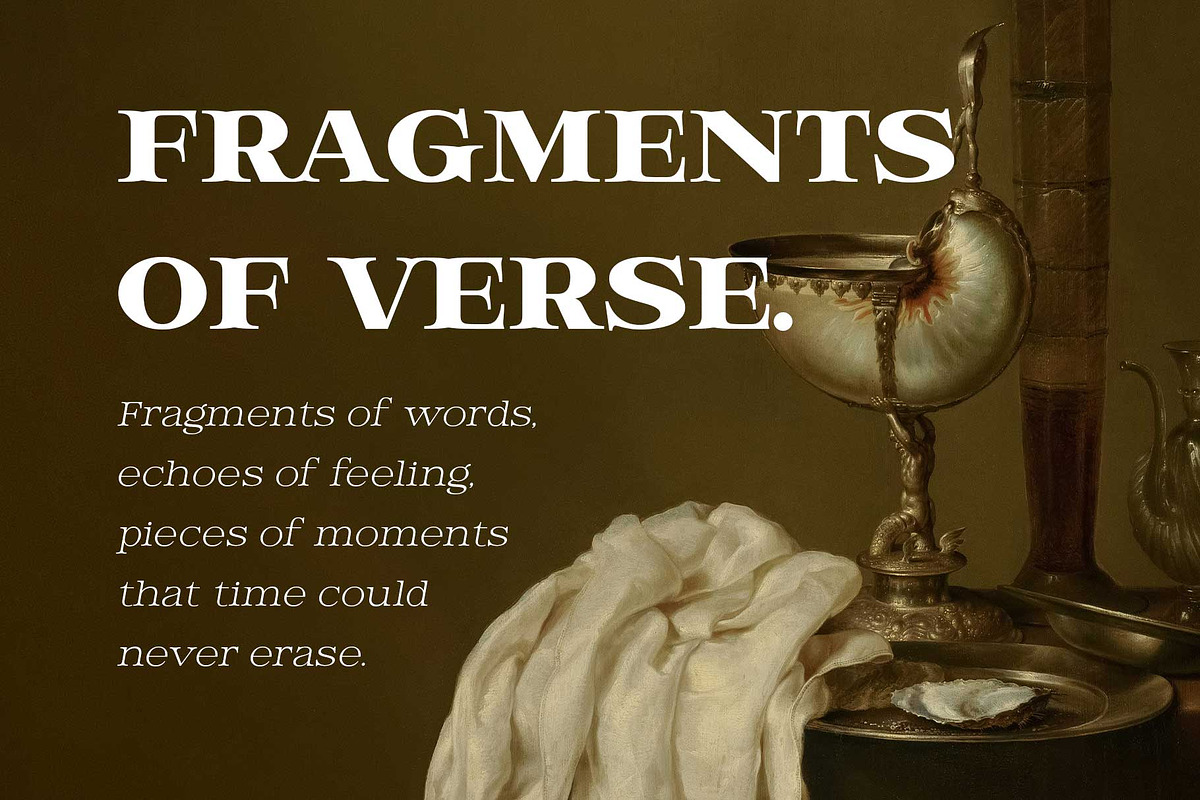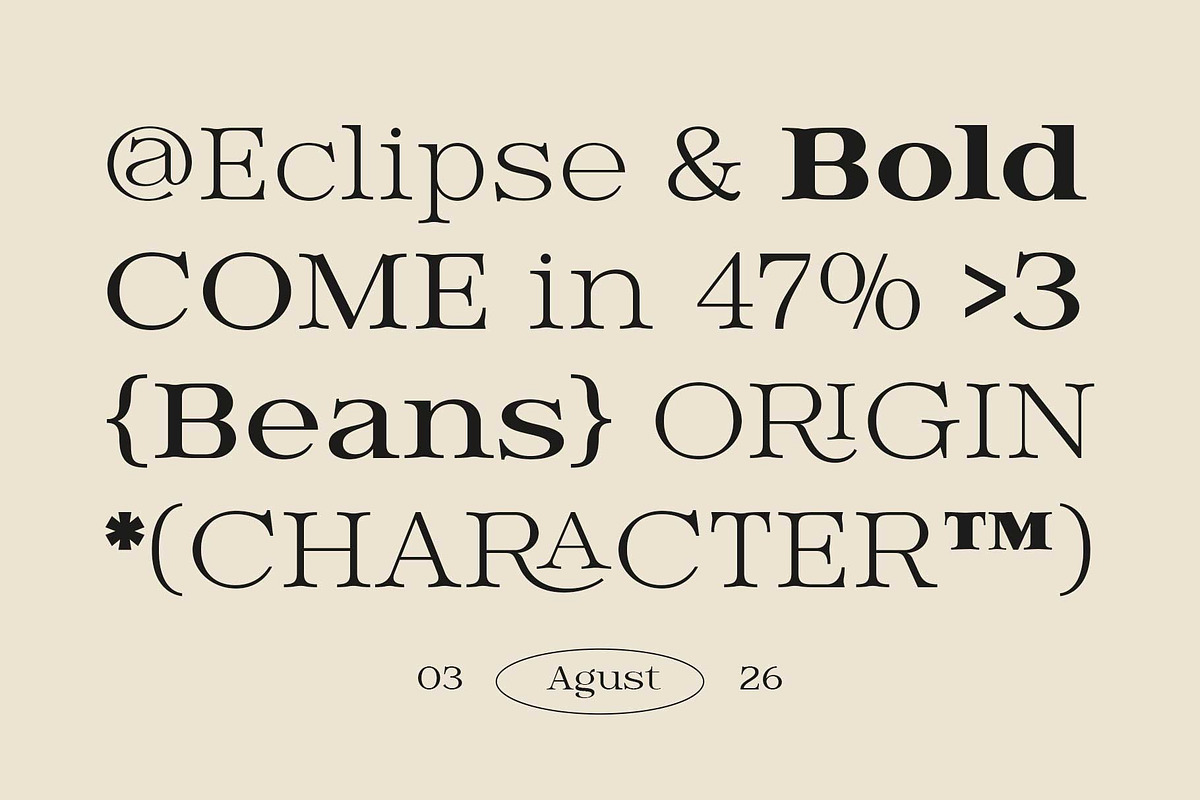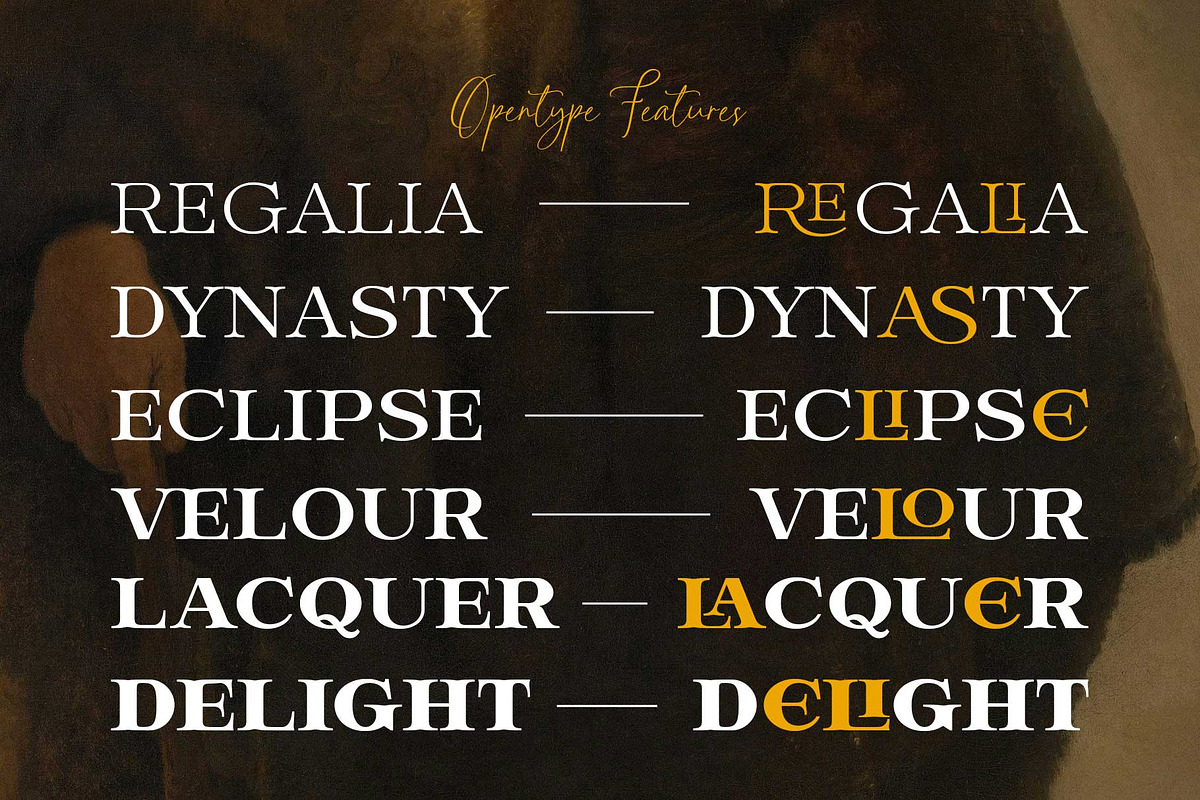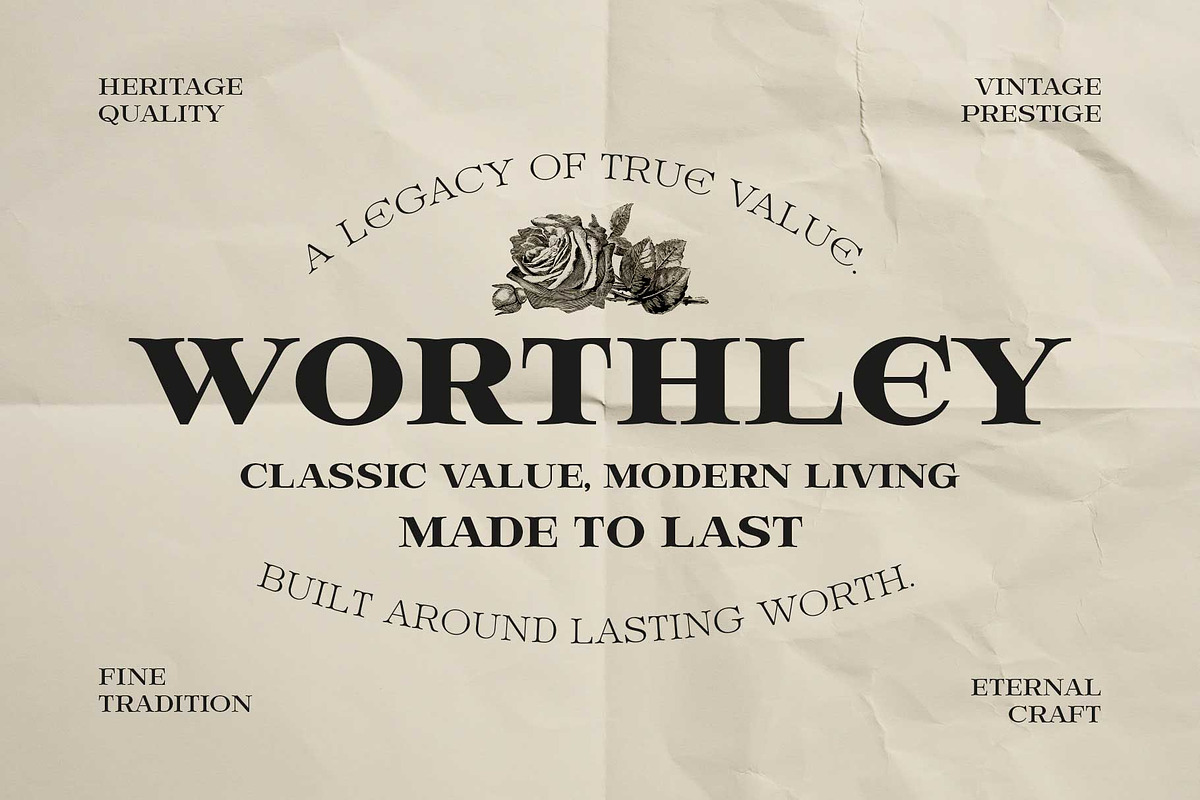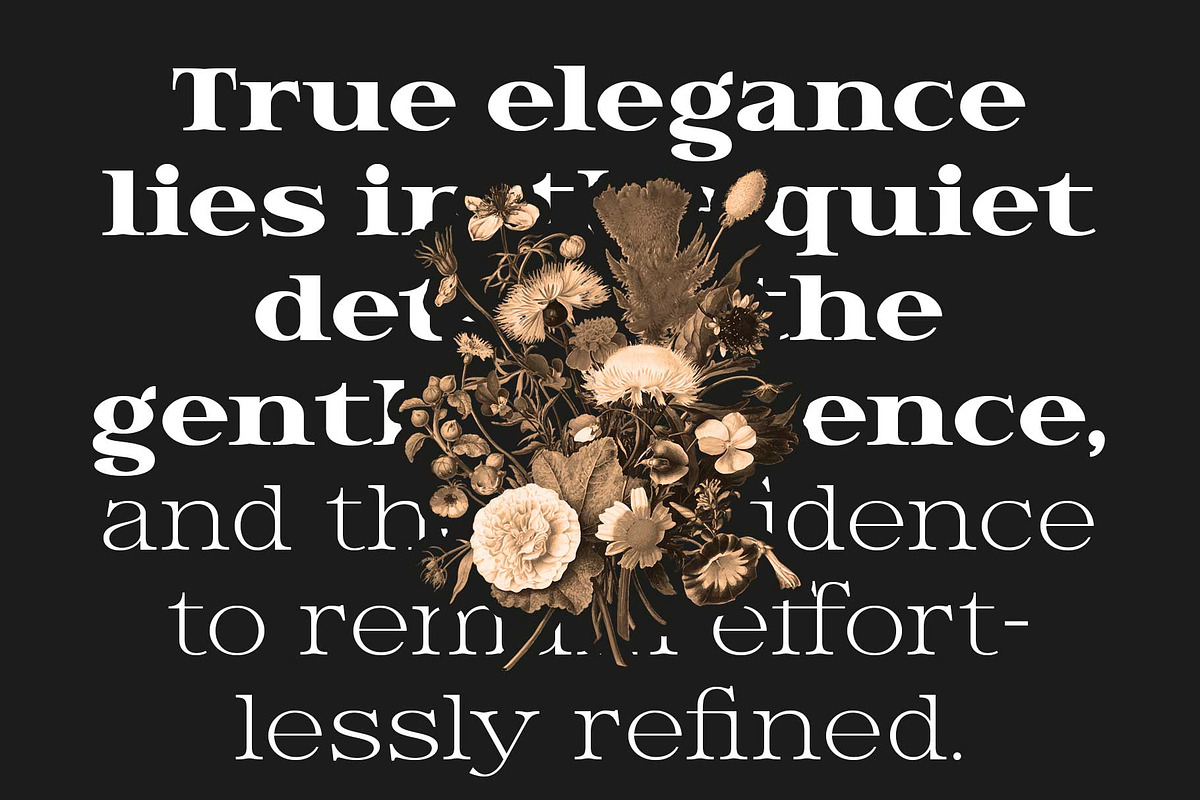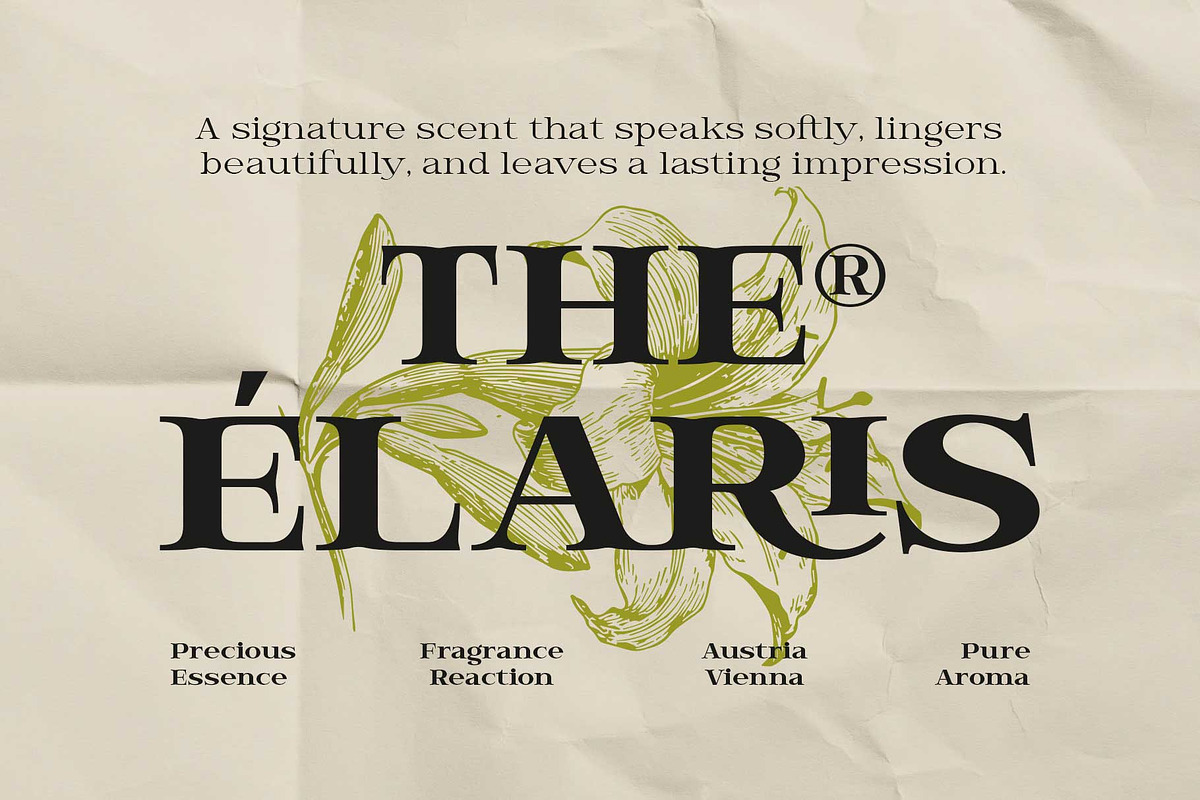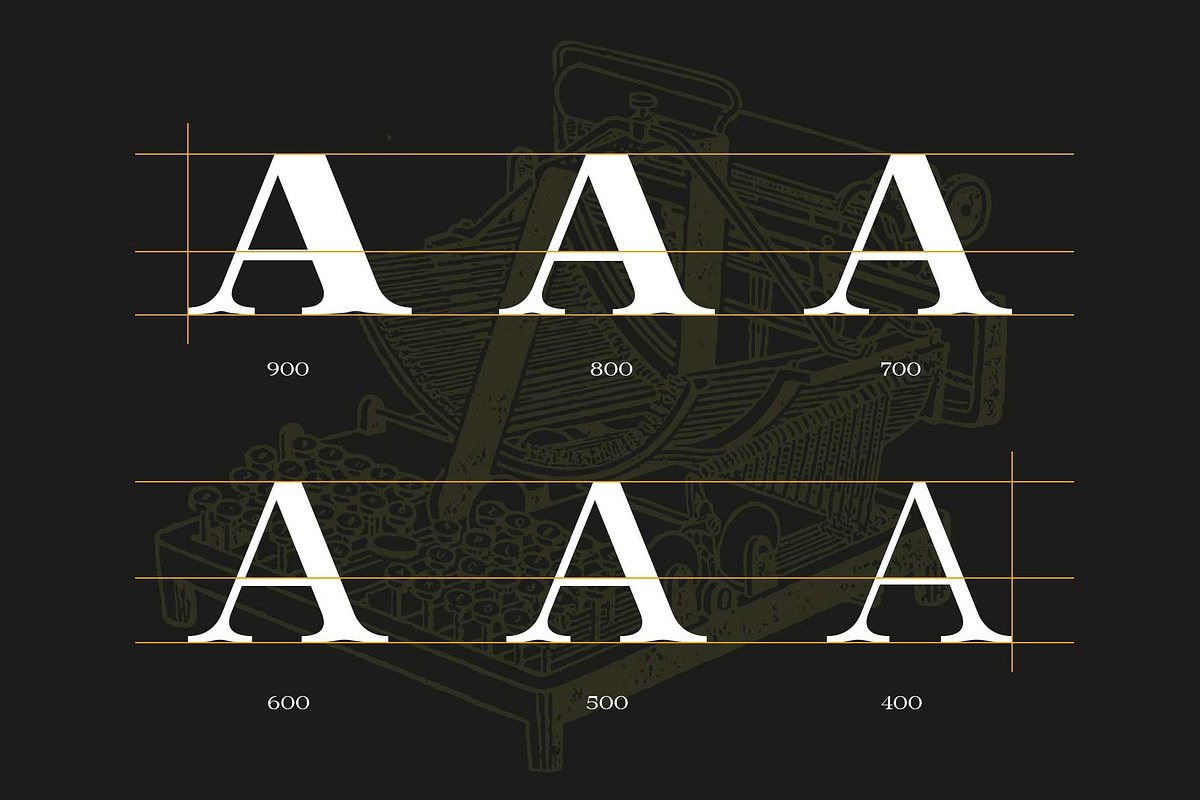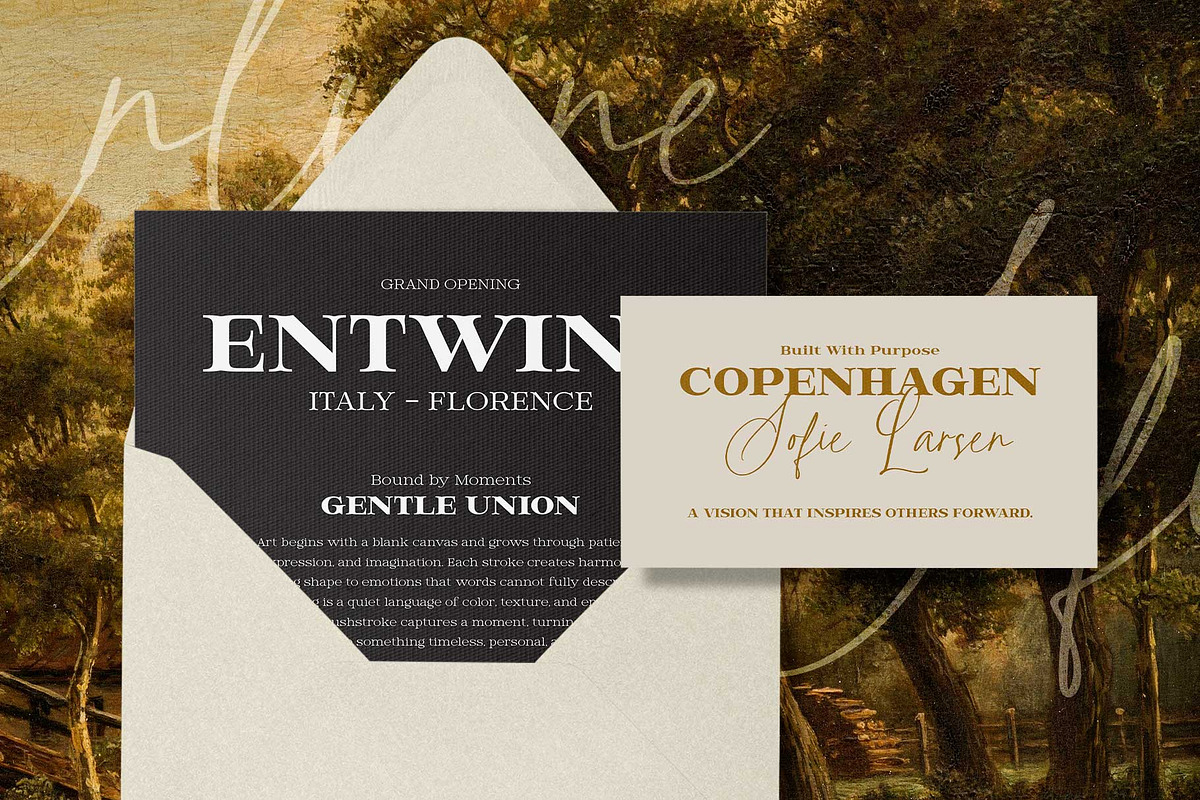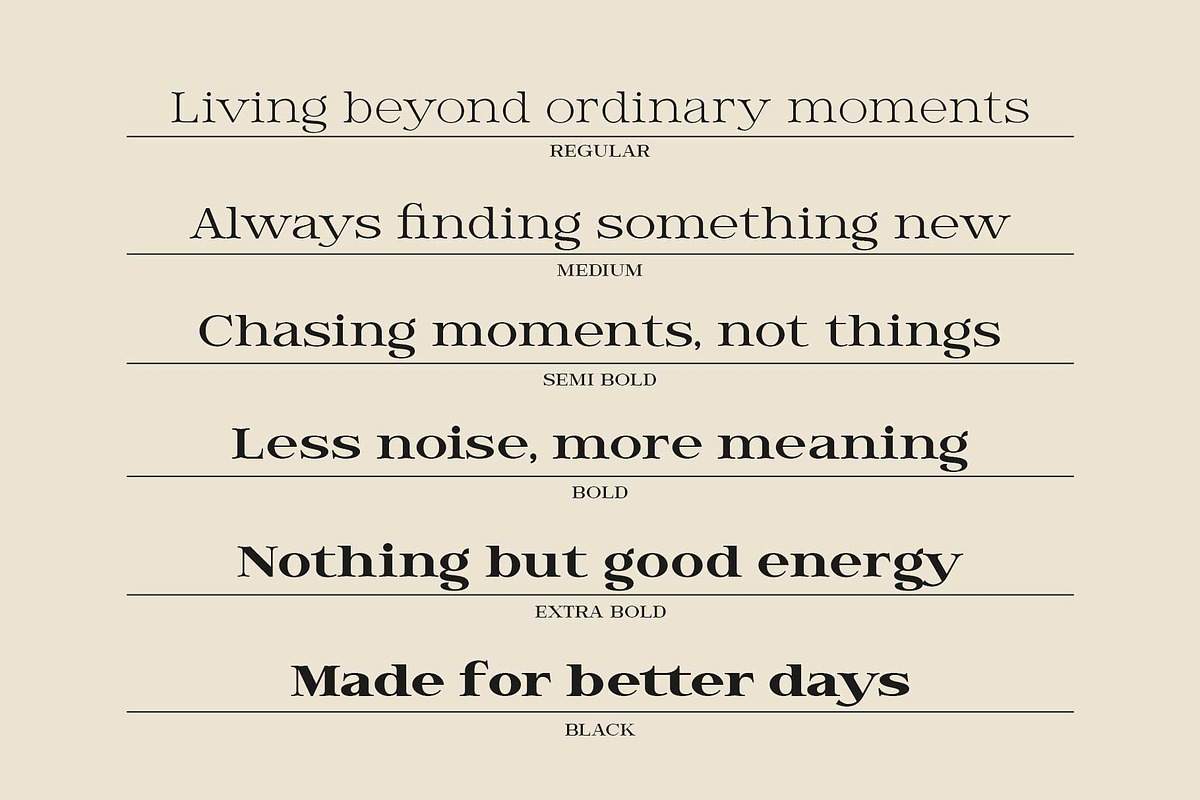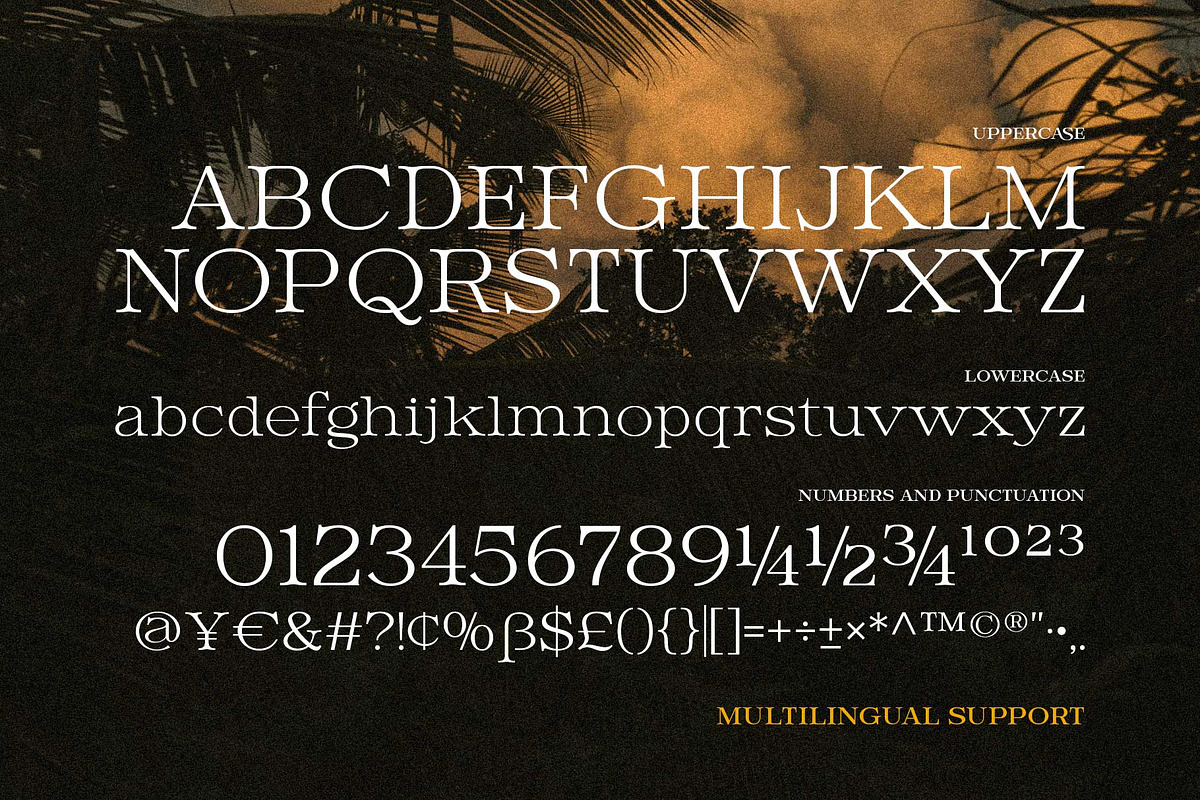
Hendry - Vintage Serif Family
Hendry is a timeless serif family inspired by classic editorial typography and vintage craftsmanship. Designed with elegant proportions, refined contrast, and subtle ligatures, it brings a sense of confidence without feeling overly formal. Whether you're creating luxury branding, premium packaging, magazine layouts, or wedding stationery, Hendry delivers a sophisticated look that feels both familiar and fresh.
With six versatile weights and carefully crafted details, Hendry gives you the flexibility to move effortlessly from delicate body text to striking headlines. It's a typeface for designers who appreciate lasting style over passing trends—built to create work that feels refined today and years from now.
Stylistic alternates